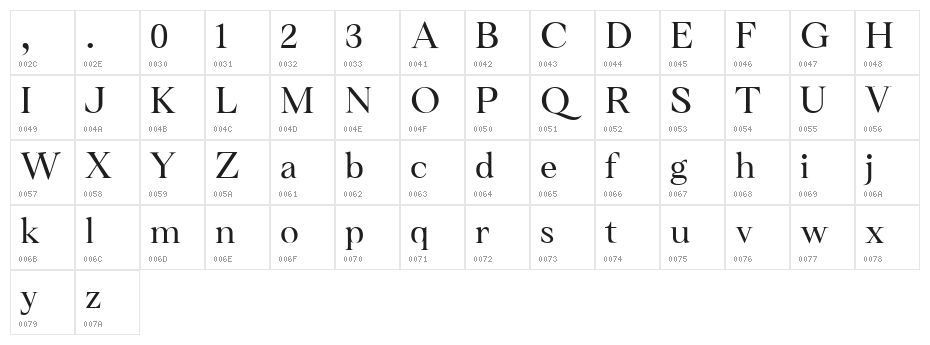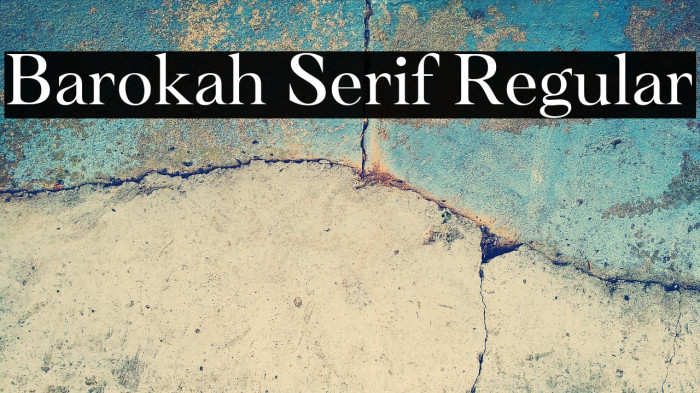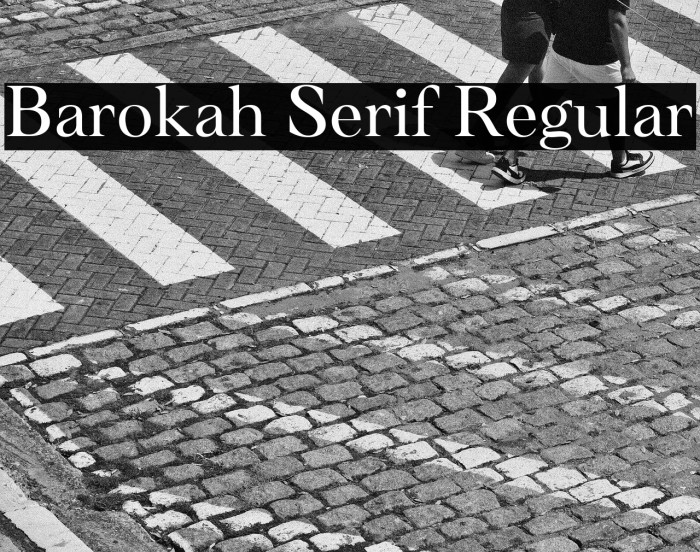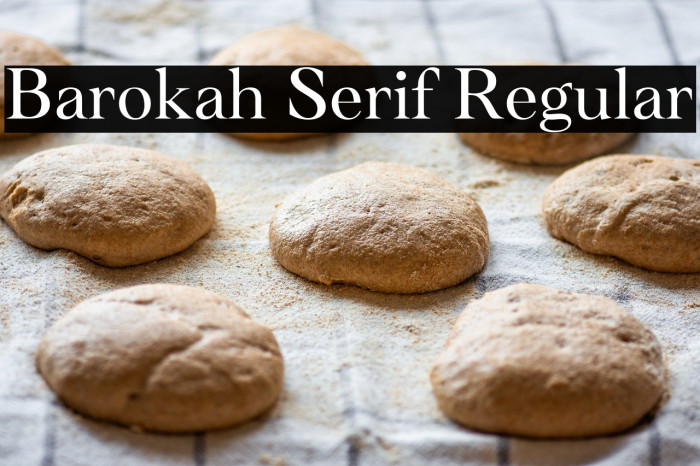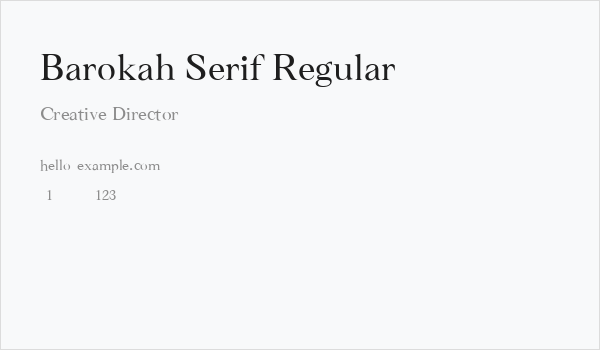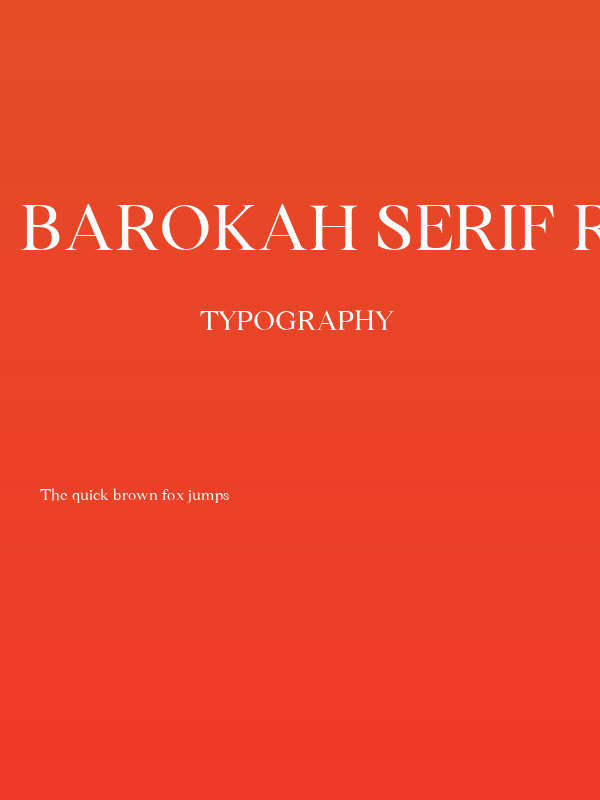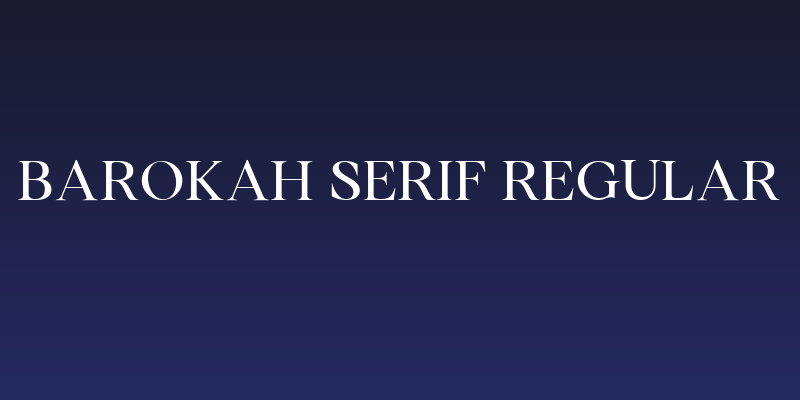
Barokah Serif Regular Font
Barokah Serif Regular Description
This font exhibits a classic serif style with elegant and refined strokes. The uppercase letters are bold and commanding, while the lowercase letters maintain a balanced and harmonious appearance. The numerals are clear and distinct, complementing the overall aesthetic. The serifs are pronounced, adding a touch of sophistication and tradition. The font's design is suitable for conveying a sense of authority and timelessness, making it ideal for formal documents, editorial design, and branding that requires a classic touch.
| Proposed Projects | Ideal for formal documents, editorial design, branding, and any project requiring a classic and authoritative look. |